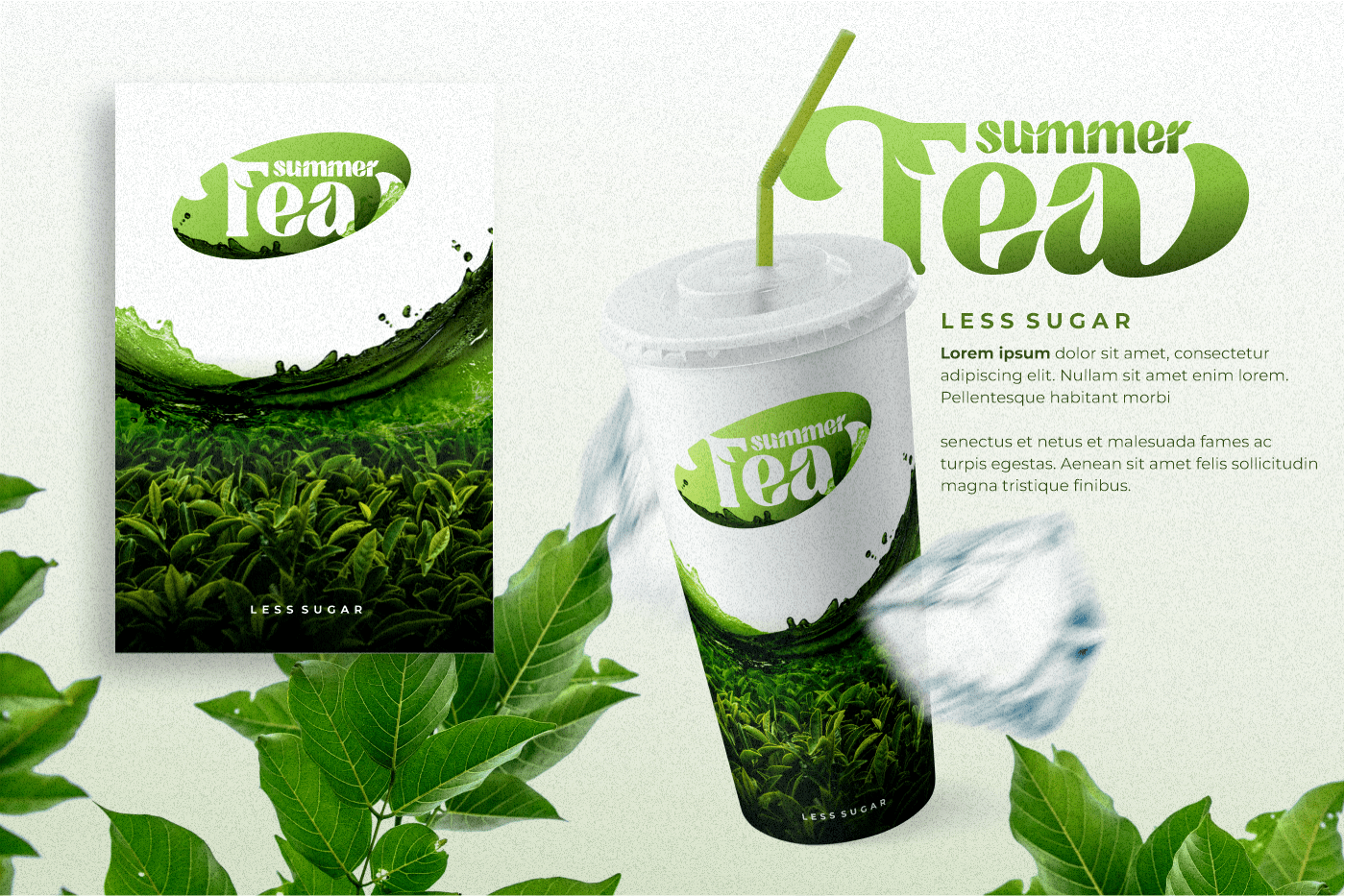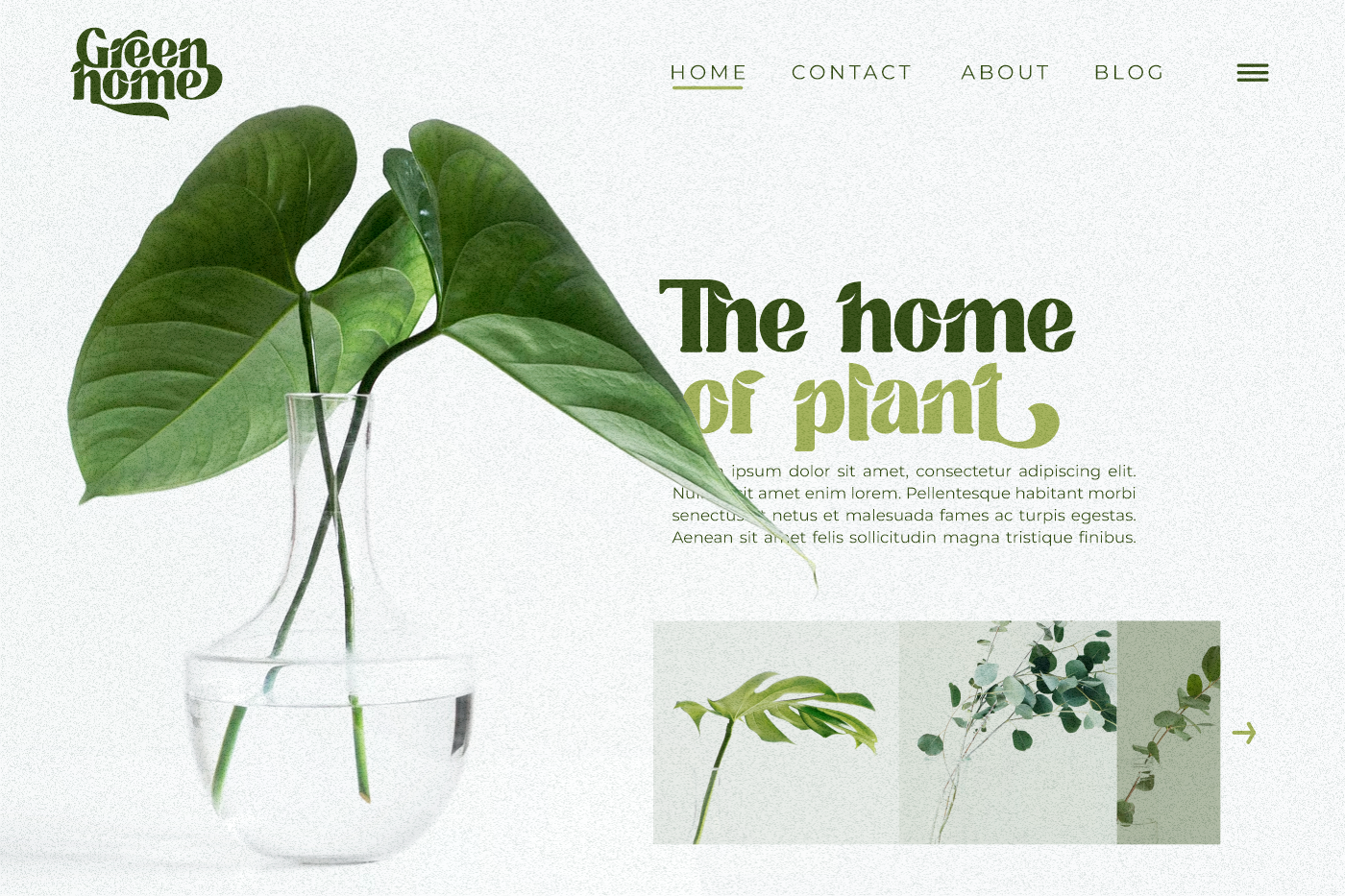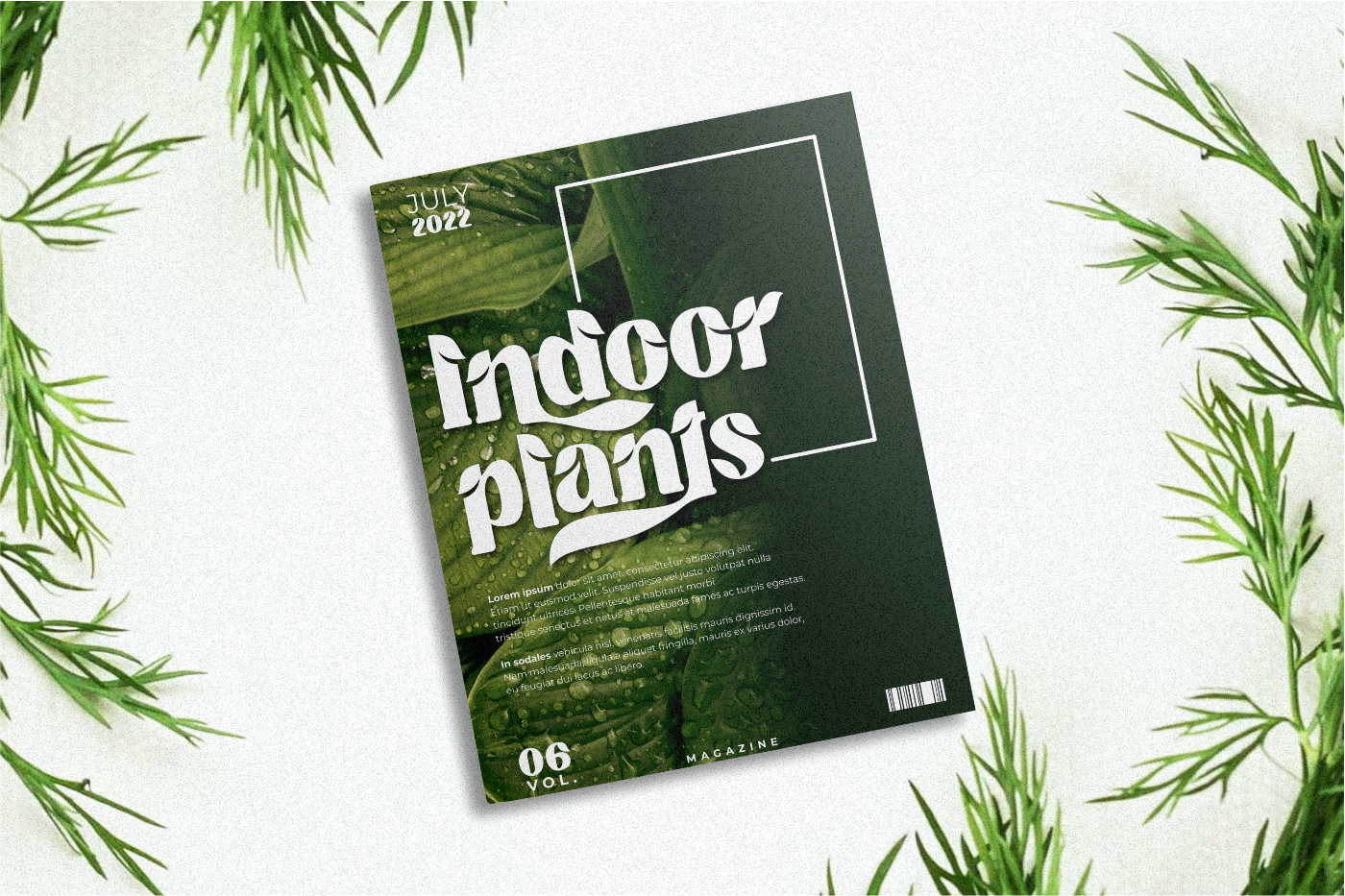
Tropical Taste Font
Tropical Taste Display Font
It’s a sans serif font with a plant theme. Letters with a combination of leaf shapes have various variations to beautify writing (Salt, Ss01, etc.). A fresh-feeling font with a leafy look.